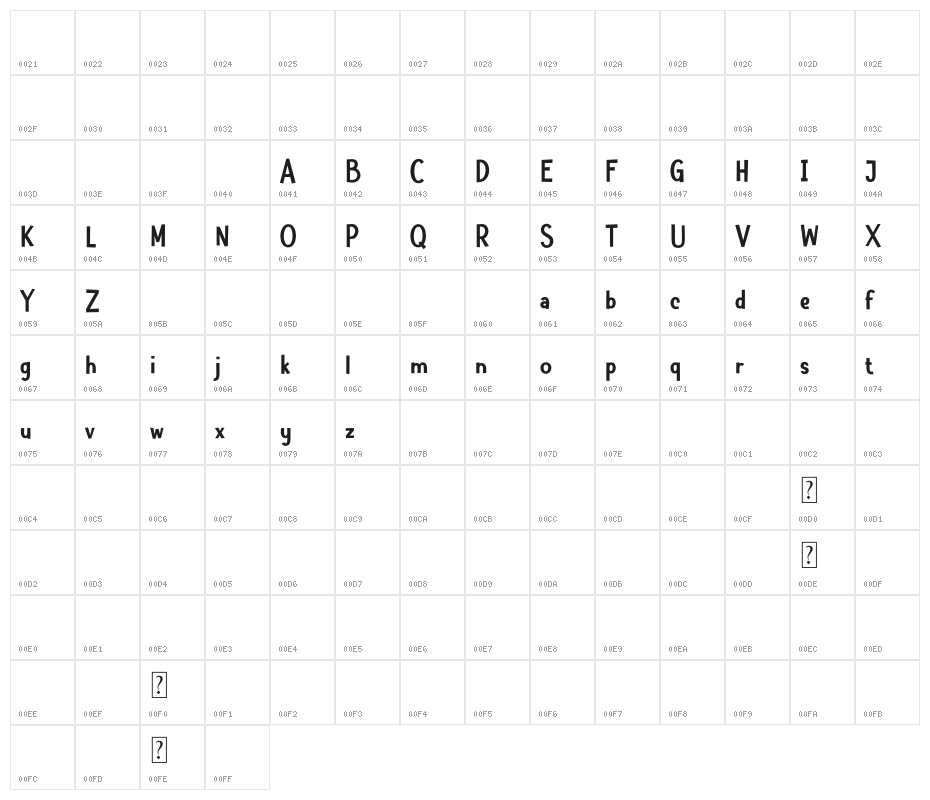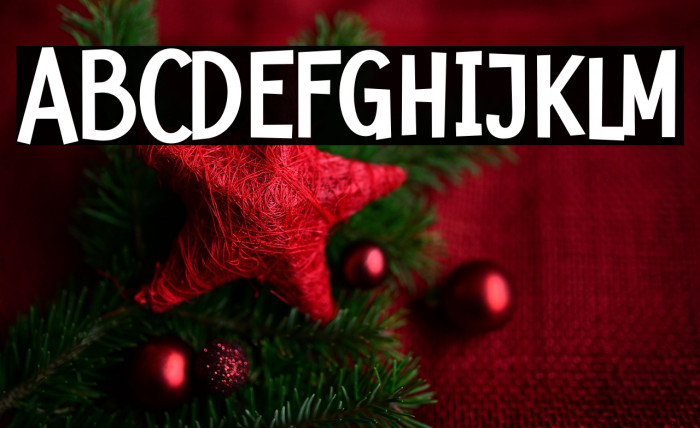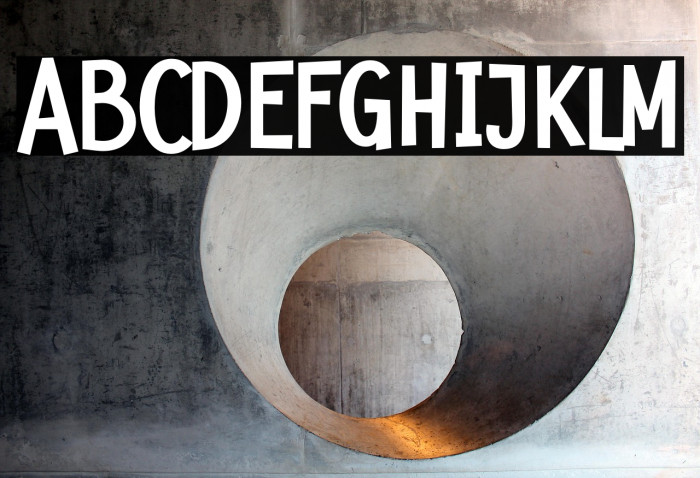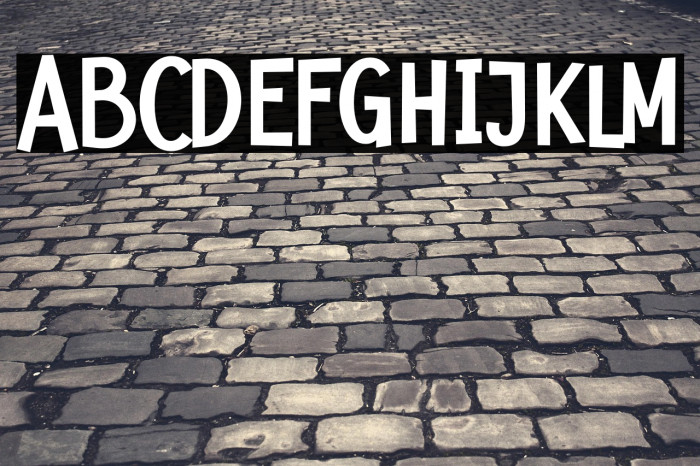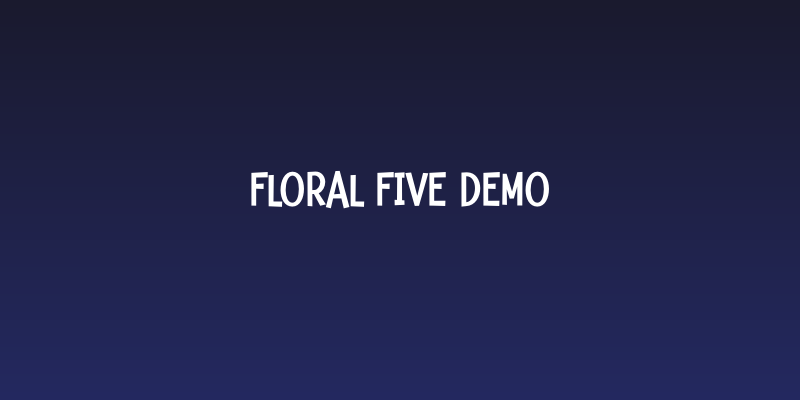
Floral Five Demo Font
Floral Five Demo Description
This font features a playful and whimsical style with a slightly uneven baseline, giving it a hand-drawn appearance. The uppercase letters are bold and prominent, while the lowercase letters maintain a consistent flow with rounded edges. The overall design is casual yet structured, making it suitable for creative and informal projects. The characters are well-spaced, ensuring readability, and the strokes vary slightly in thickness, adding to the font's charm. It is versatile enough to be used in various design contexts, from children's books to greeting cards.
| Proposed Projects | Ideal for children's books, greeting cards, playful branding, and creative posters. |